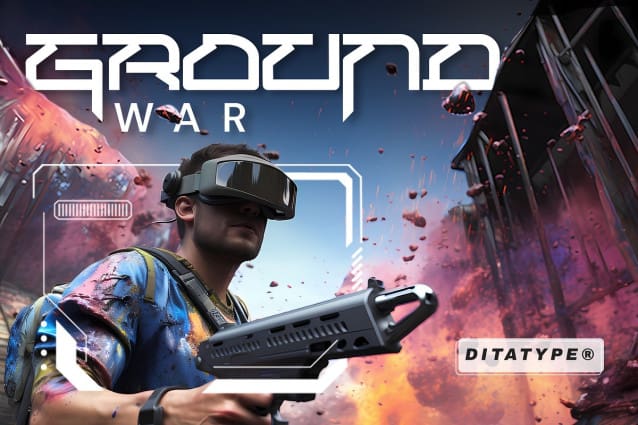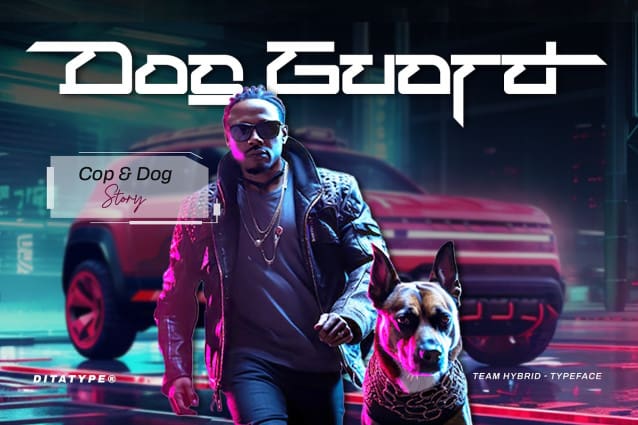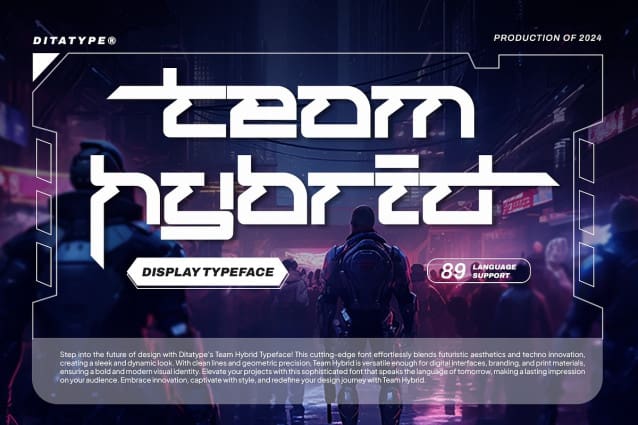
Team Hybrid Font
Team Hybrid Font is a cutting-edge display font that seamlessly blends futuristic style with techno innovation. The combination of futuristic style and techno innovation makes Team Hybrid a versatile choice to get a bold and contemporary aesthetic project.
At its core, Team Hybrid is designed to evoke a sense of innovation and progress, with each letter meticulously crafted to reflect the latest in technological advancements. The clean lines and geometric shapes give the font a sleek and sophisticated appearance, while the fairly thick weight adds a sense of solidity and presence. One of the key characteristics of TeamHybrid is its ability to convey information with clarity and impact. This font ensures that your message is delivered with maximum visibility and readability.